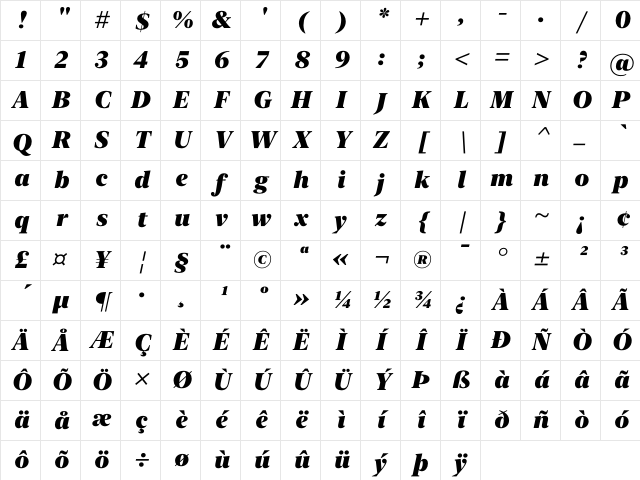
New York Extra Large Black Italic
Foundry: Apple Inc.
Designer: Apple Inc.
Design Context for New York Extra Large
New York Extra Large is a composed and adaptable typeface that performs quietly and consistently across a wide range of design contexts. The slanted form adds forward momentum and visual energy.
Pro Tip: Use New York Extra Large for emphasis, pull quotes, and subheadings where its slanted energy can add rhythm to the layout.
Who designed the New York Extra Large Black Italic font?